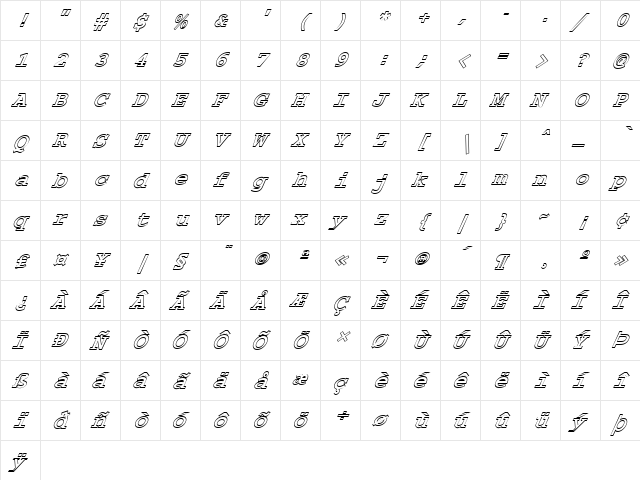
FZ DIGITAL 3 HOLLOW ITALIC Normal Font Preview
FZ DIGITAL 3 HOLLOW ITALIC Normal
Design Context for FZ DIGITAL 3 HOLLOW ITALIC Typeface
FZ DIGITAL 3 HOLLOW ITALIC channels digital-age aesthetics through its sharp, structured letterforms — ideal for brands that want to signal innovation. Its italic angle brings a sense of urgency and motion to the letterforms.